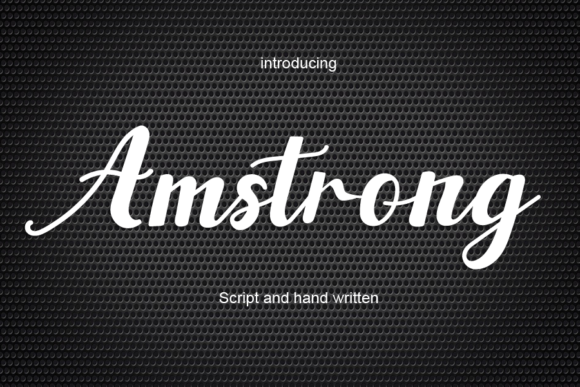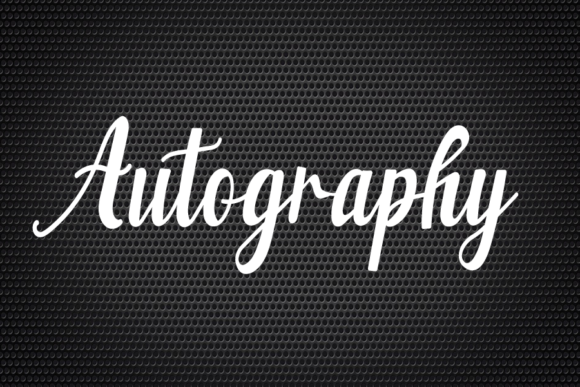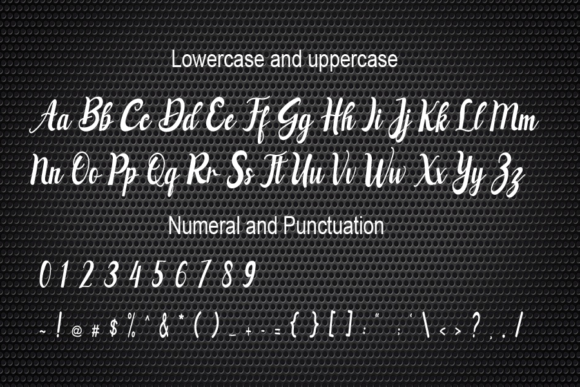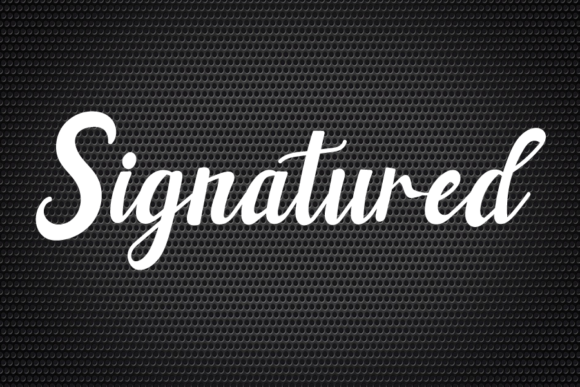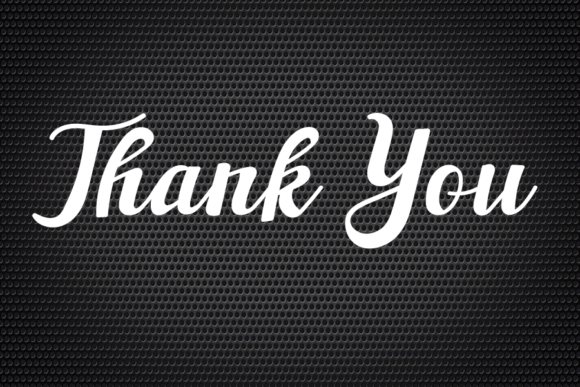
Amstrong Font
About Amstrong Font
Amstrong is a lovely script font featuring charming, playful characters that seem to dance along the baseline. Add this font to your most creative ideas, and notice how it makes them stand out!